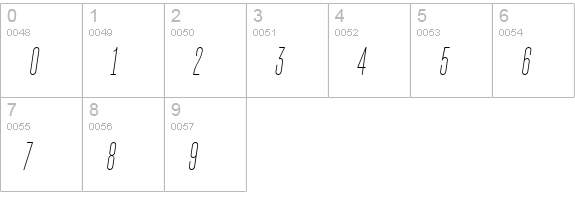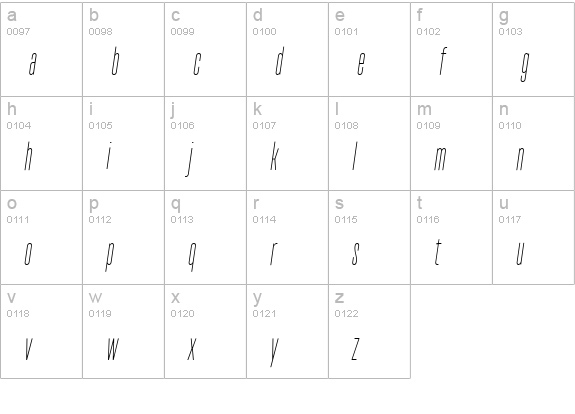
TT Bluescreens Round Light Ita is a refined, elegant variant in the TT typeface family \xE2\x80\x94 well suited to elegant body text, refined sub-headings, and luxury branding.
TT Bluescreens Round Light Ita font is a sleek and modern typeface that exudes a sense of sophistication and style. With its rounded edges and elegant curves, this font is perfect for adding a touch of flair to any project. Whether you're designing a website, creating a logo, or crafting a piece of print material, TT Bluescreens Round Light Ita font is sure to make a statement. What's even better is that this font is available for free download at FontsMarket.com. That's right, you can easily access this stunning font at no cost, making it a fantastic option for designers on a budget or anyone looking to enhance their creative projects without breaking the bank. Don't miss out on the opportunity to add TT Bluescreens Round Light Ita font to your font collection today!